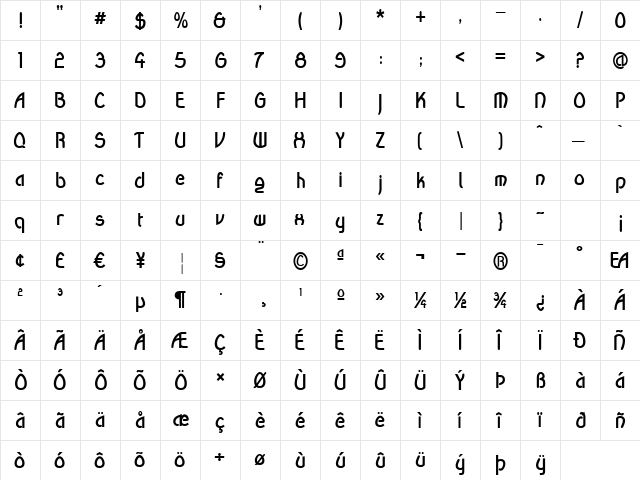
Wanda Bold Regular
Design Context for Wanda Bold Typeface
Wanda Bold takes a measured approach to typography — its balanced proportions and neutral character make it a reliable workhorse for both digital and print work. The heavy weight commands attention and anchors typographic hierarchies.